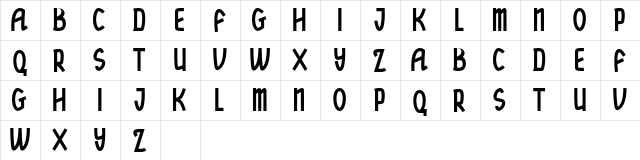
hypnotique personal use Regular
| Designer | Kurnia Setyadi (deedeetype 2019) |
Design Context for hypnotique personal use Typeface
hypnotique personal use offers clean, dependable letterforms without strong stylistic allegiance, making it a practical choice for designers who need flexibility.